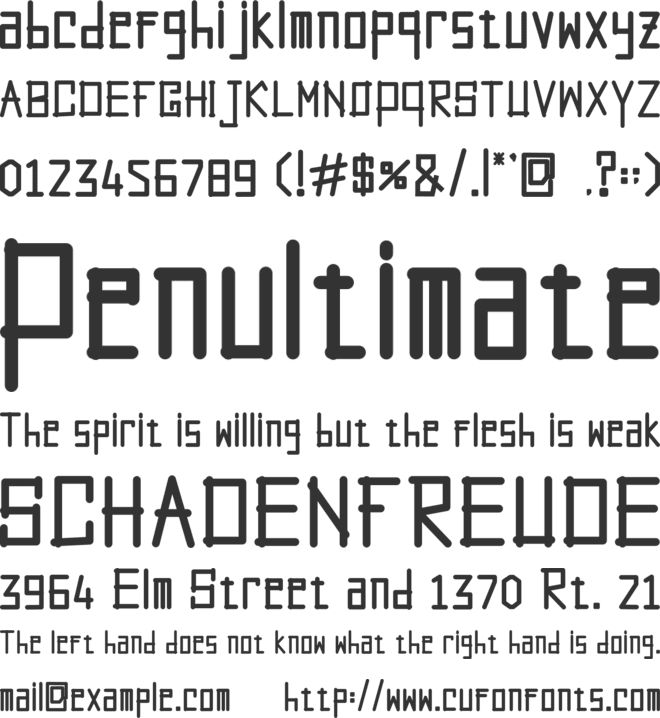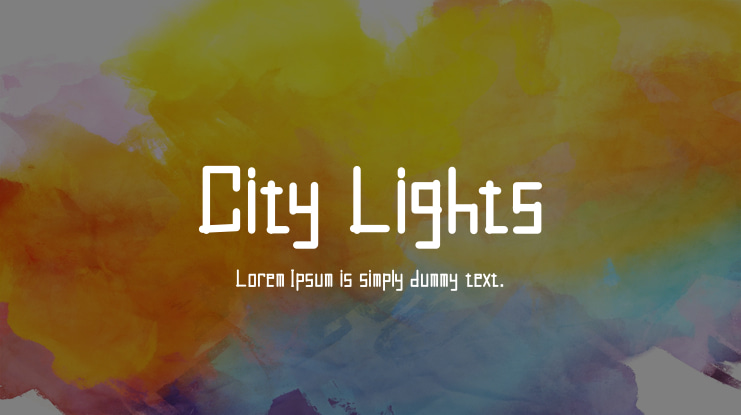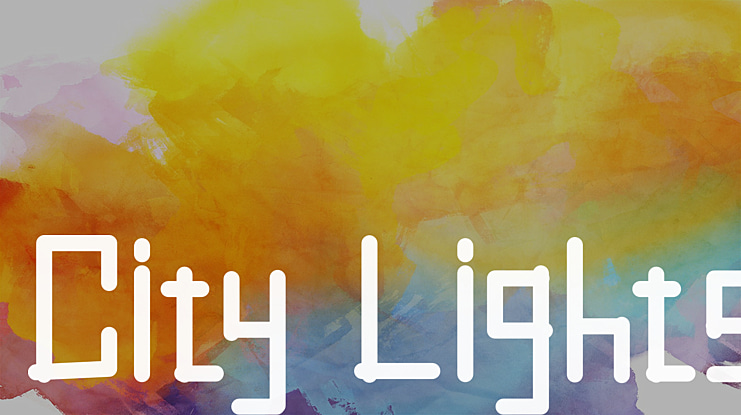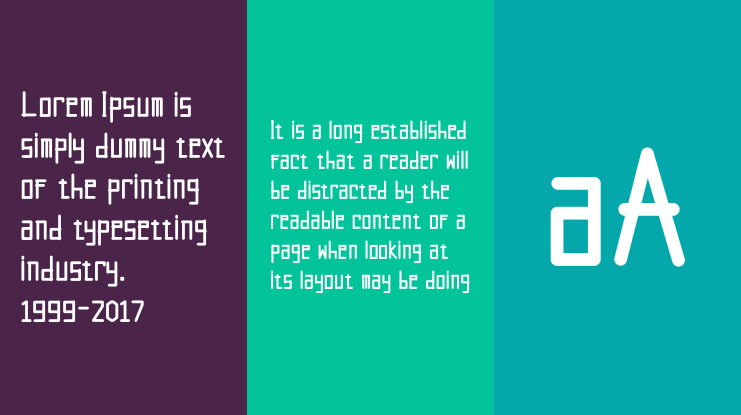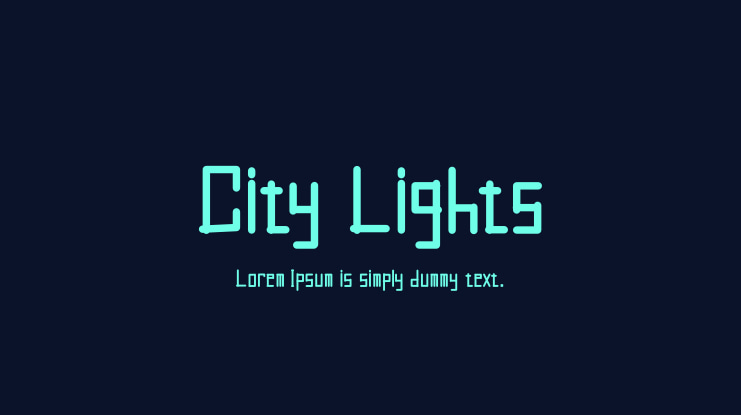
City Lights Font
City Lights is an unique, geometrically shaped display font. This font is ideal for writing web designs, business cards, or pretty much anything else that requires a unique touch.